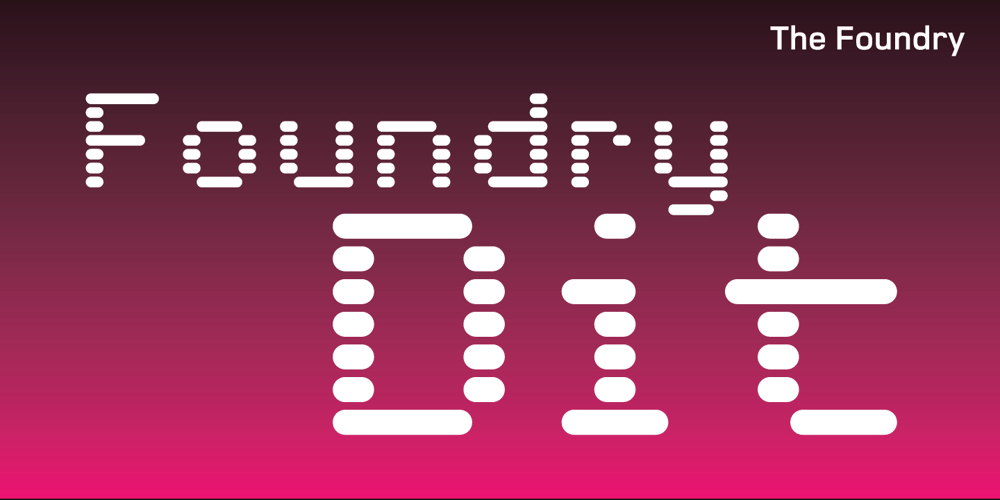
Foundry Dit Font Family was designed by Freda Sack, David Quay, Stuart De Rozario and published by The Foundry. Foundry Dit contains 4 styles and family package options. Foundry Dit is created with a common horizontal dash grid structure for accurate layering when characters are superimposed. Foundry Dit functions as a legible correspondence font, with a ‘typewriter’ feel. Foundry Dit’s companion family Foundry Dat has an integrated background grid. Each family contains: light, regular, medium and bold weights. Foundry Dat comes with a series of dashes to extend the grid. Characters can also be offset to make different patterns – in the process becoming images – a graphic language with total integration of form and function.